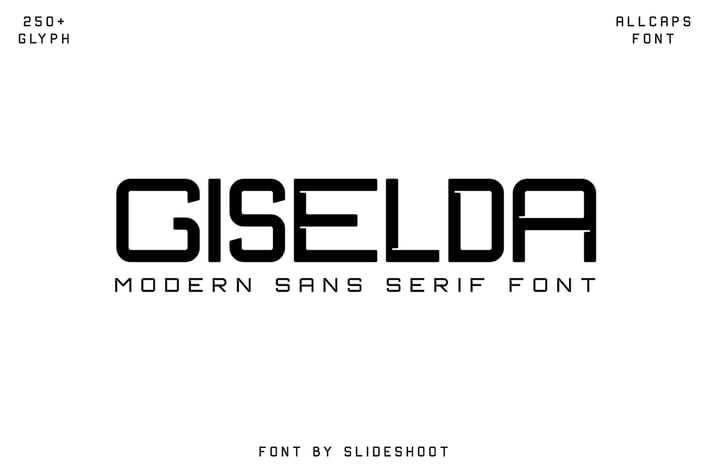
Giselda - Sans Serif Font
Giselda Sans Serif is a modern and classy typeface, best used as a display for titles, logos, branding, magazines, product packaging, and invitations and various other designs. Giselda Sans Serif is a sans serif font that comes with smooth curves. Its stylish alternation and binding make this font the perfect partner for any project.
- Uppercase and lowercase
- Numbering and Punctuation